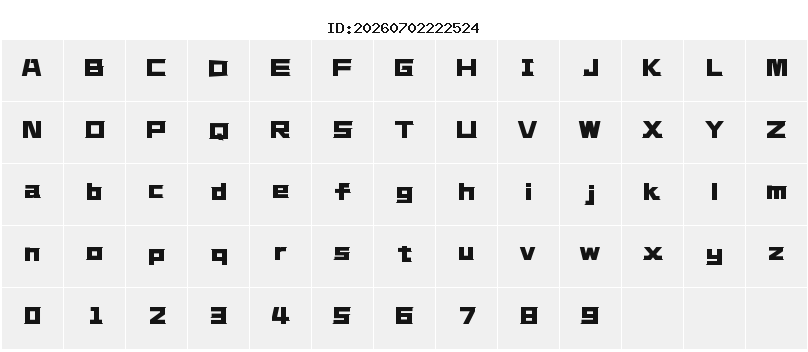
162-上首幻视体 Preview
• Font Name: 162-上首幻视体
• Font ID: 162-SSHuanshiTi:Version 6.00
• Full Font Name: 162-上首幻视体
• Version: Version 6.00 June 19, 2023
• PostScript Name: 162-SSHuanshiTi
• Character Count: 7569
• Manufacturer: 上首造字
About 162-上首幻视体.ttf
162-上首幻视体.ttf is a modern, elegant sans-serif font designed for ultimate readability and visual harmony. Perfect for branding, headlines, web design, and print materials.